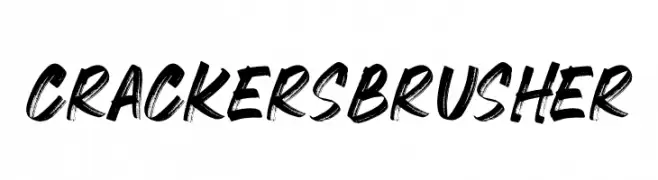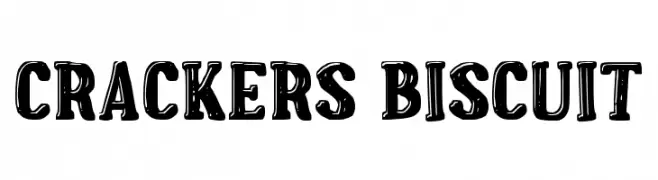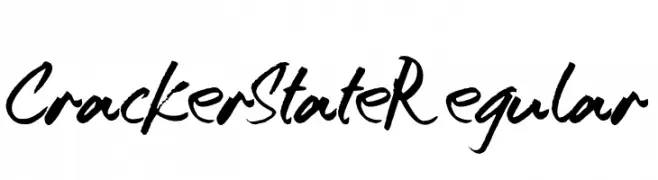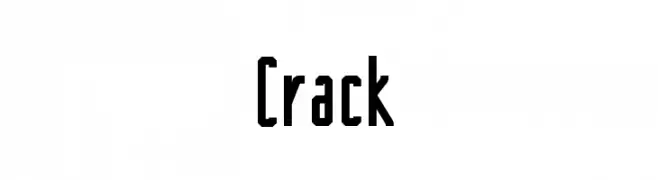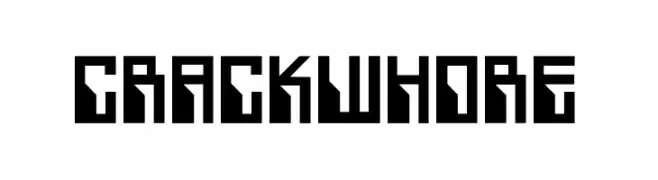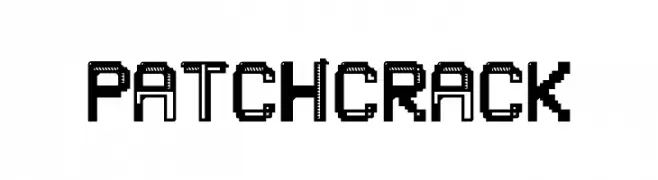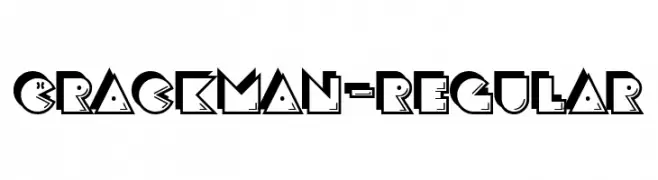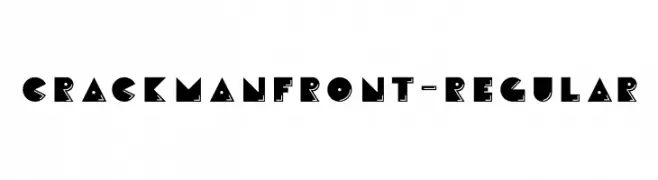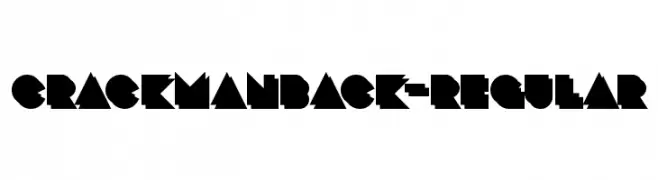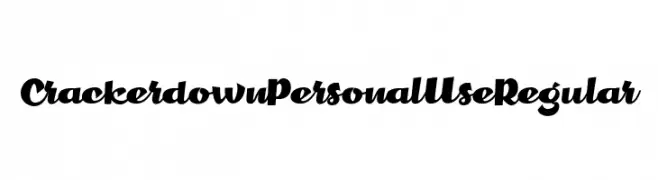
A bold, brush-style font with dynamic, hand-painted strokes.
A bold, playful font with a hand-drawn, distressed style.
A bold, expressive handwritten font with dynamic brush strokes.
A bold, condensed, and modern geometric font with a futuristic feel.
A bold, geometric font with sharp angles and a futuristic design.
A bold, pixelated font with a retro, arcade-style design.
A bold, geometric font with a playful, retro arcade-inspired design.
A bold, geometric font with playful cut-out elements and strong visual impact.
A bold, geometric font with sharp, angular edges and a modern, decorative style.
A bold, dynamic font with a playful and energetic style.